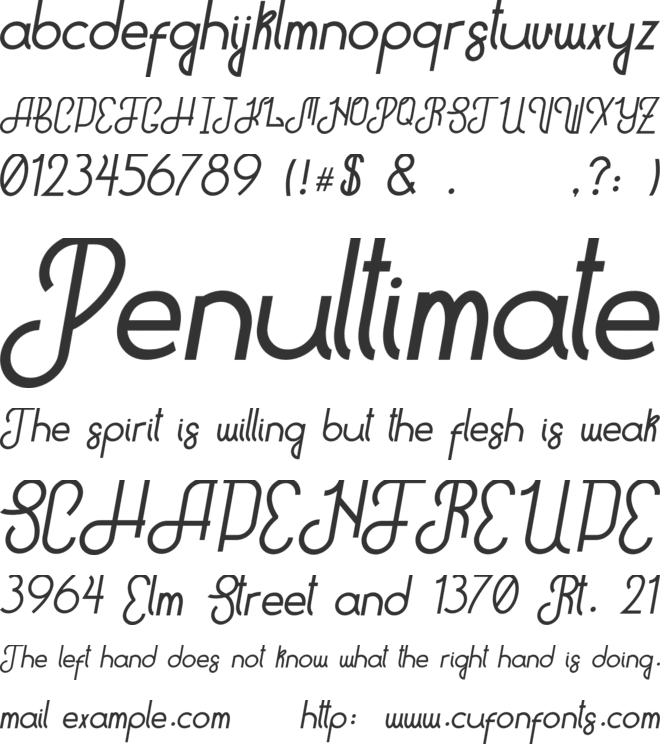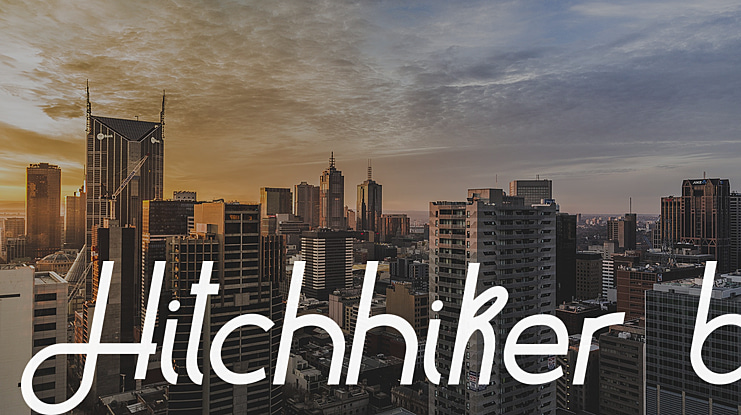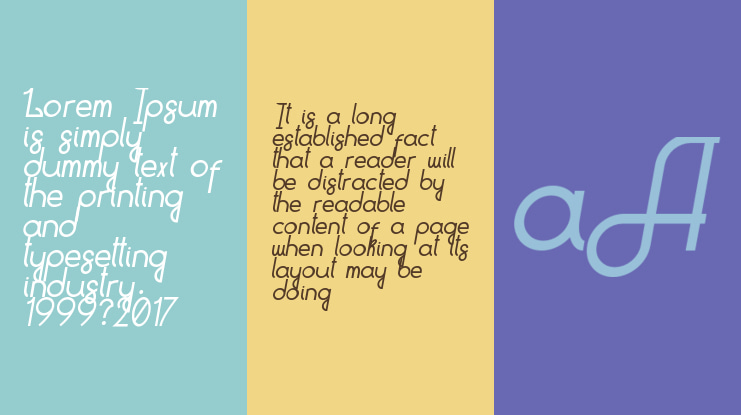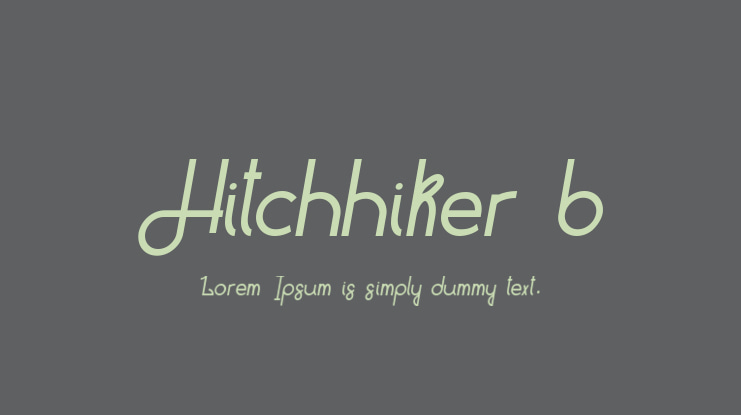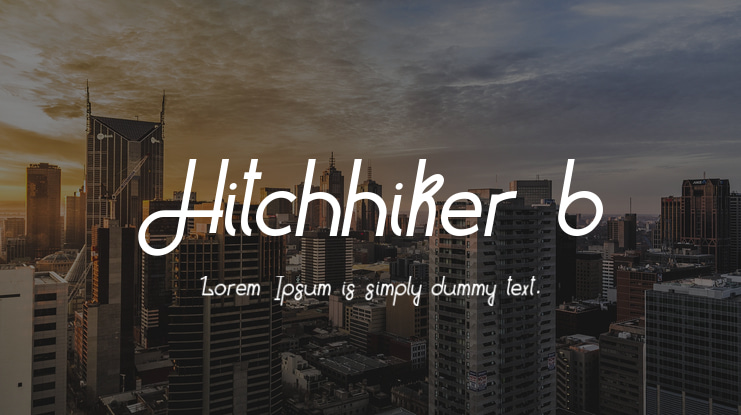
Hitchhiker b Font Family
Slava Krivonosov aka Designvamp
Inspired by America's mid-20th century and road travelling philosophy, especially by Jack Kerouac's novel "On the road". Totally free. Thank you!